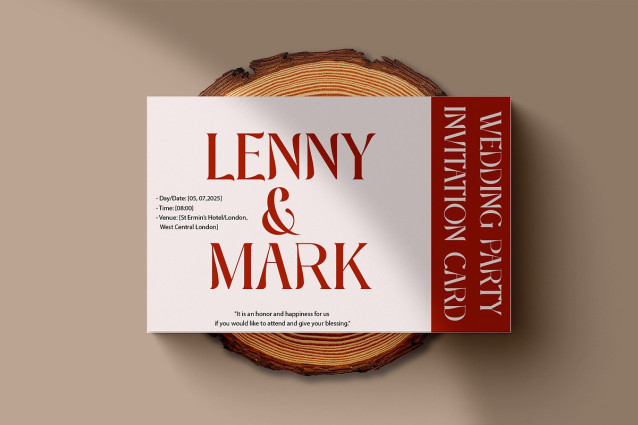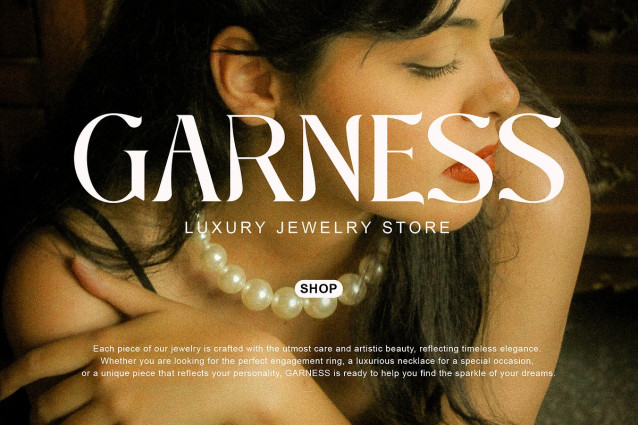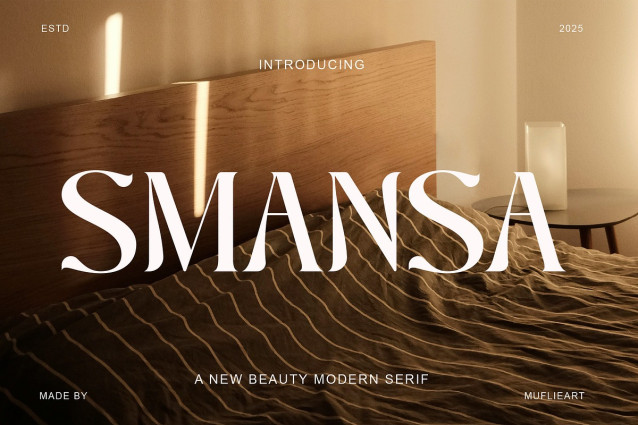
Smansa Font
Smansa Font the elegant, beautiful, and modern Serif. With its modern and minimalist look, Smansa brings a luxurious, classy, ​​and clean style to your projects such as websites, modern logos, brand identities, social media quotes, wedding stationery, magazines, and more!
Smansa features unique and classy capital letters A to Z making Smansa a beautiful font that can be customized for various projects and jobs you want.
Smansa is perfect for: logos, brands, wedding invitations, business cards, greeting cards, posters, magazines, social media, agenda prints, and websites.